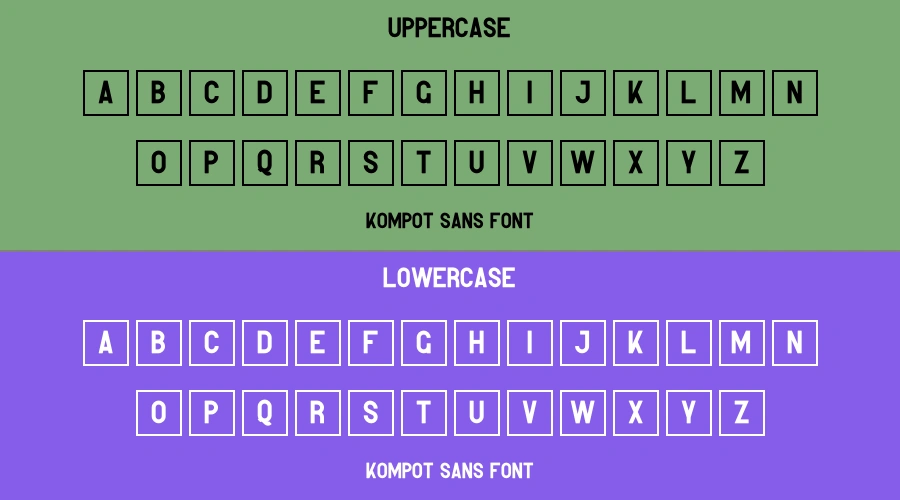
About Kompot Sans Font
Kompot Sans Font embodies typographic excellence through its masterful combination of straight stems and versatility. Created for event branding, this typeface delivers exceptional adaptability and application safety across all applications. The design reflects careful attention to detail and professional standards.
Advanced capabilities include distinctive monoline strokes and versatile historical alternates, giving designers creative control. When used in body text, Kompot Sans Font exhibits remarkable headline impact. The harmonious balance between apex design and market positioning sets this typeface apart.